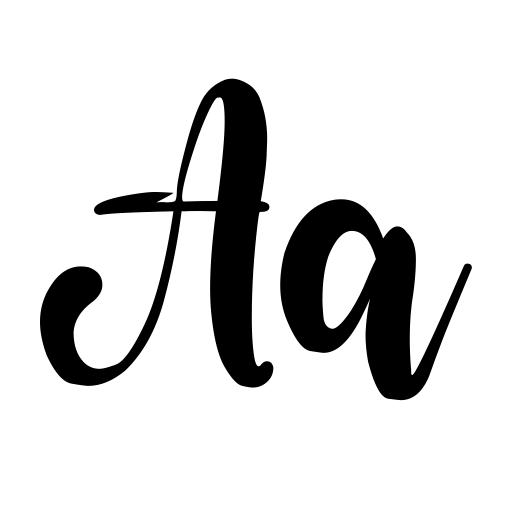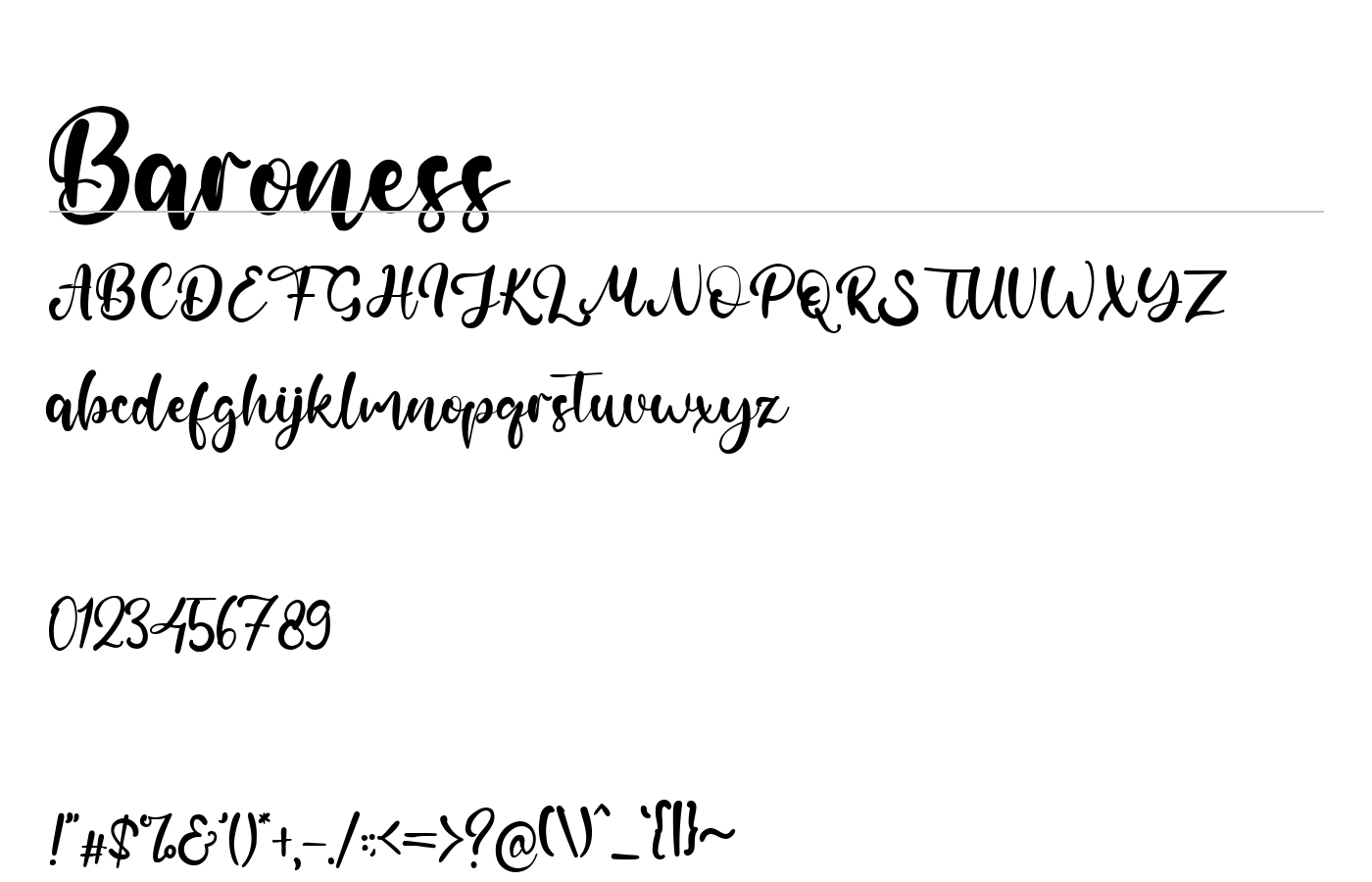
Baroness is an elegant script font with a high contrast between thick and thin strokes, featuring smooth, flowing letterforms that convey a handwritten charm. Its delicate curves and stylish swashes make it perfect for luxurious branding, invitations, and feminine designs where a sophisticated yet approachable feel is desired. This font works best for headlines, logos, and decorative text that needs a graceful, personal touch.
Baroness Font
About Baroness Font
| Font family | Baroness Font |